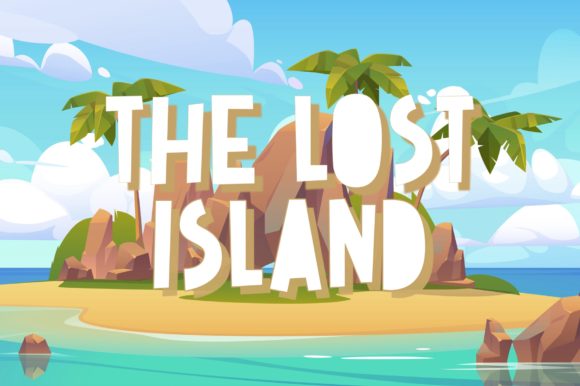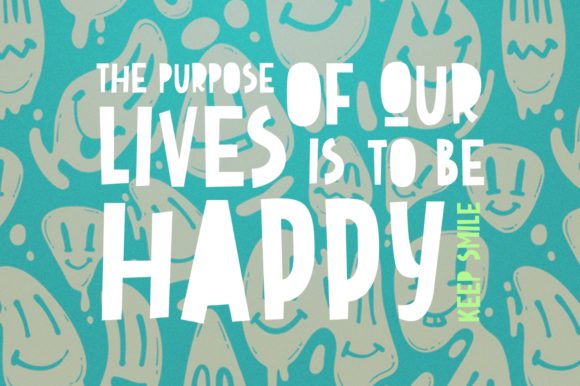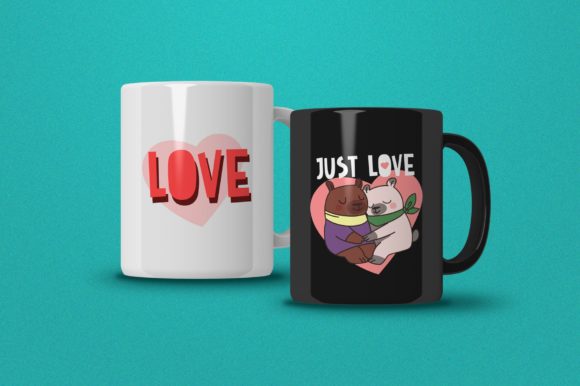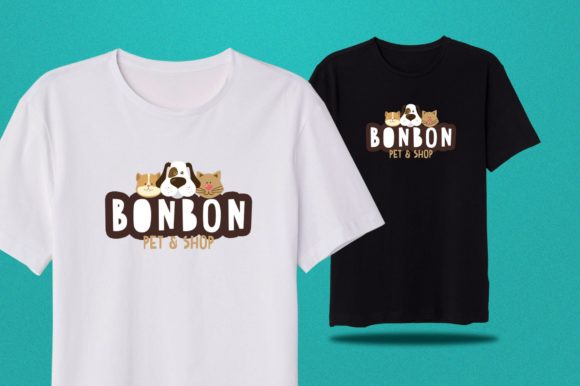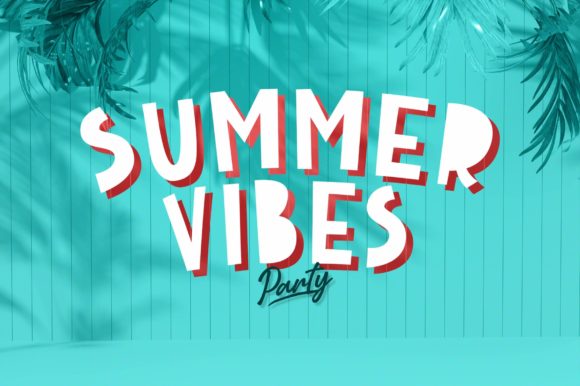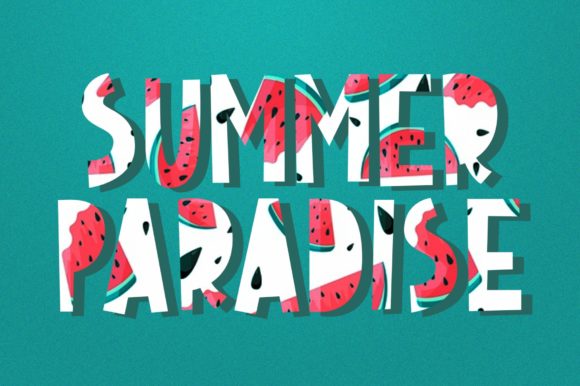
Introduction to Beblock Font
Beblock is a fun and fresh display font.
This dazzling display font will turn any creative idea into a standout .
Key Features of Beblock Font